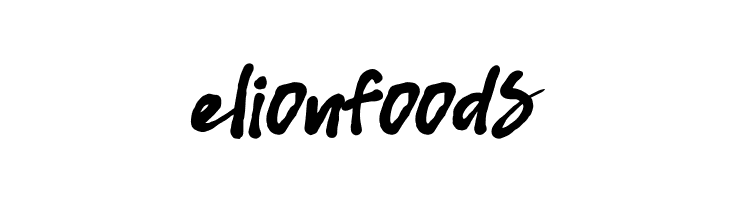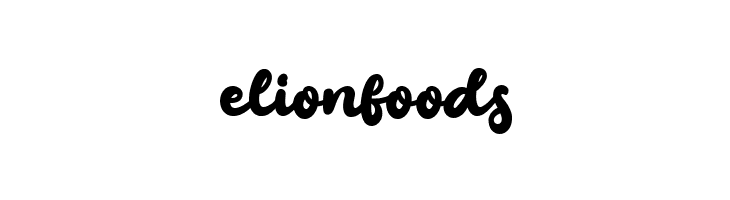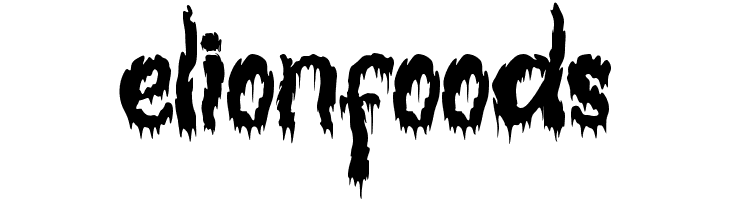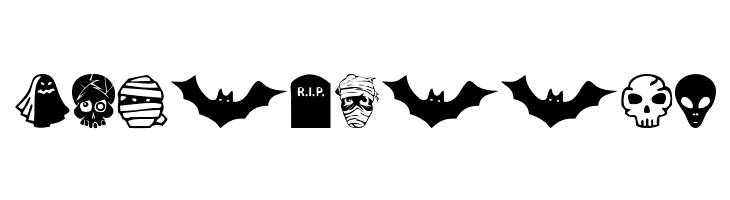
A dripping, horror-themed font with a bold, eerie style.
A bold, playful font with a hand-painted, brush stroke style.
A playful, monster-themed font with bold, cartoonish characters.
A bold, energetic handwritten font with a playful and casual style.
A playful, bold, and rounded hand-drawn font with a whimsical touch.
Halloween-themed icon font with bold, playful silhouettes.
A spooky collection of bold, Halloween-themed icons in solid black silhouettes.
A bold, italicized font with a dynamic, angular design.